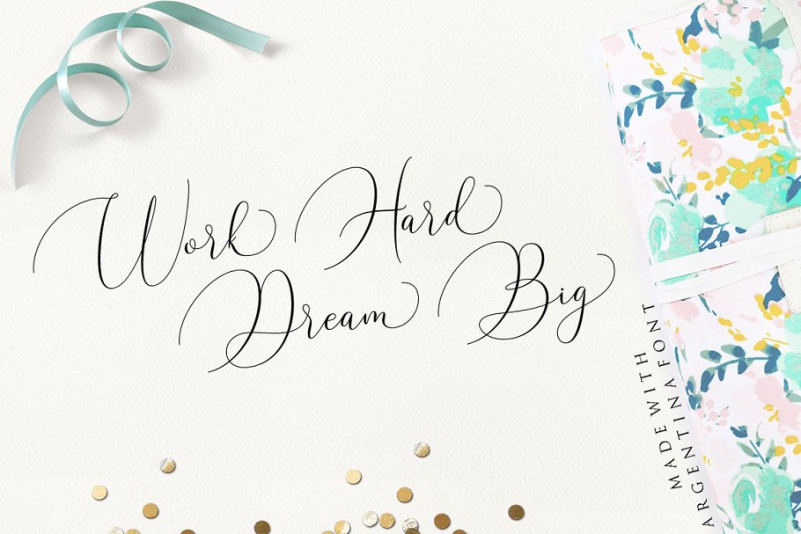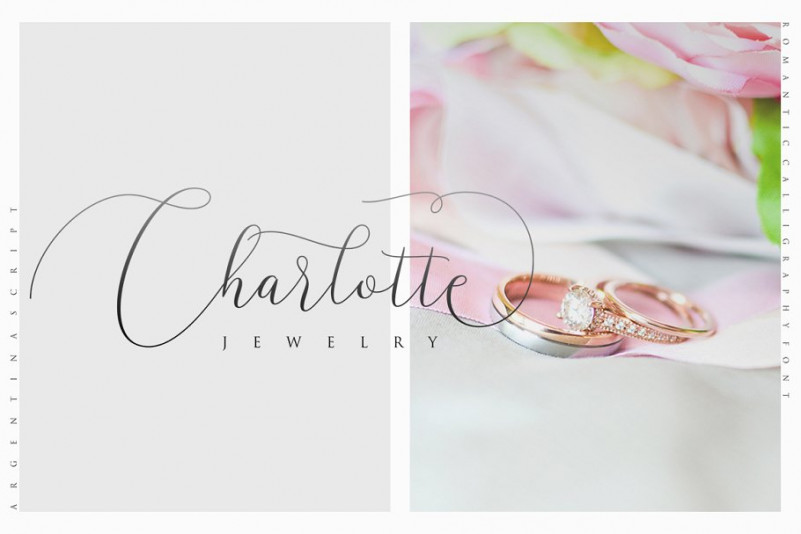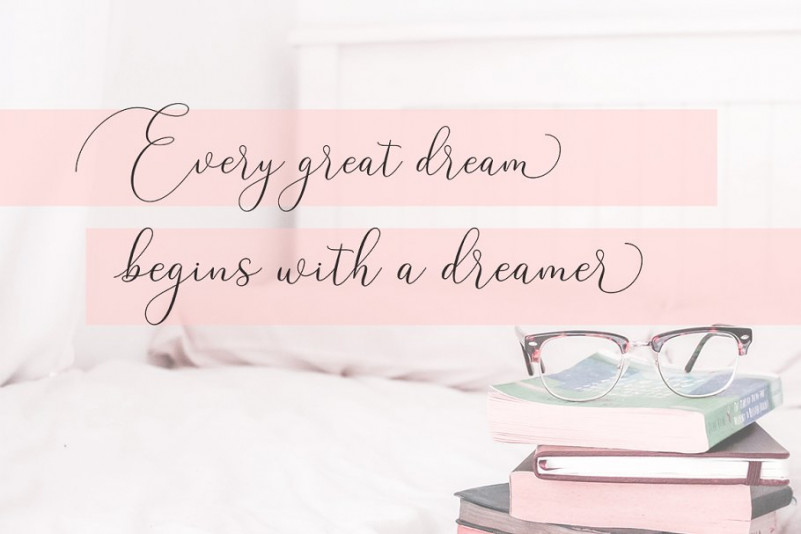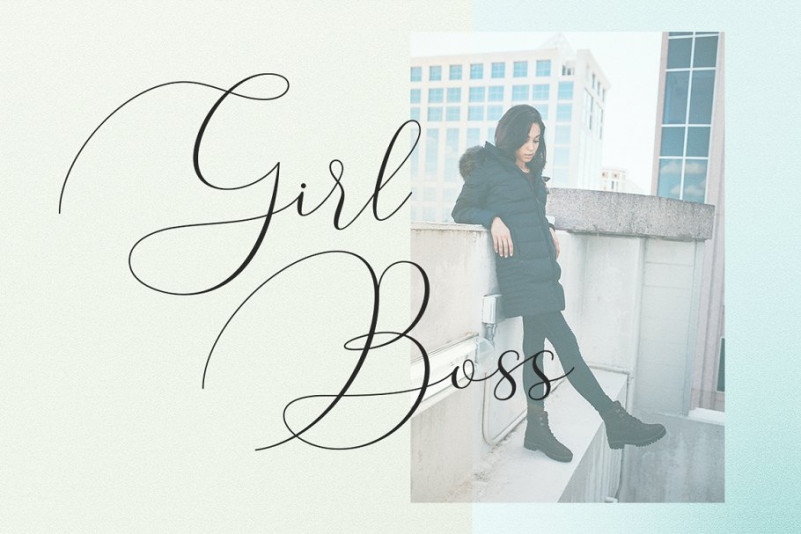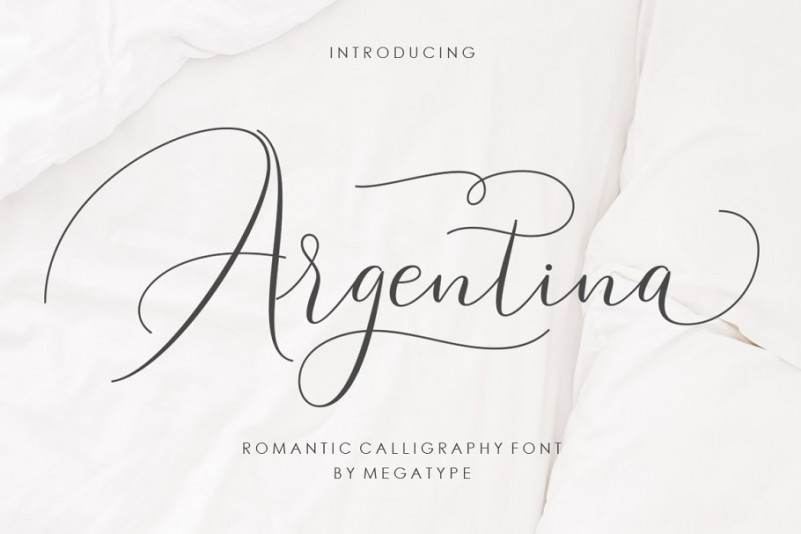
Argentina Script Font
Introducing Argentina Calligraphy Font. It is designed by Megatype, this is a premium font, are sold on creativemarket, but it was great, it is free today for download. Argentina Script Font is a romantic calligraphy font that features a varying baseline, smooth line, classic and elegant touch. Can be used for various purposes.such as headings, signature, logos, wedding invitation, t-shirt, letterhead, signage, lable, news, posters, badges etc.